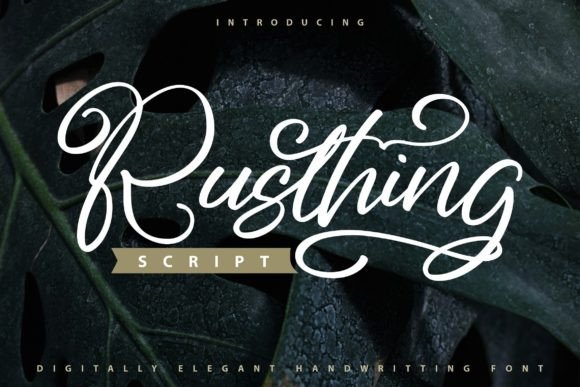
Rusthing Font
Introducing Rusthing Font, a calligraphy-inspired handwritten font that will add an undeniable touch of elegance to your creative projects. Immerse yourself in the world of exquisite typography with Rusthing, a script font that exudes sophistication and charm.
With its graceful curves and sweeping strokes, Rusthing captures the essence of handwritten artistry, bringing a personal and heartfelt feel to your designs. Whether you're crafting invitations, greeting cards, branding materials, business cards, quotes, or posters, Rusthing will elevate your creations to new heights of visual appeal.
Rusthing's versatility extends beyond its wide range of applications. Its PUA encoding makes accessing all glyphs and swashes a breeze, empowering you with endless customization possibilities. Unleash your creativity and explore unique combinations to create designs that truly stand out.
Embrace the beauty of handwritten elegance with Rusthing Font. Its captivating style and versatility make it the perfect choice for designers, crafters, and creative enthusiasts seeking to add a touch of timeless charm to their projects.